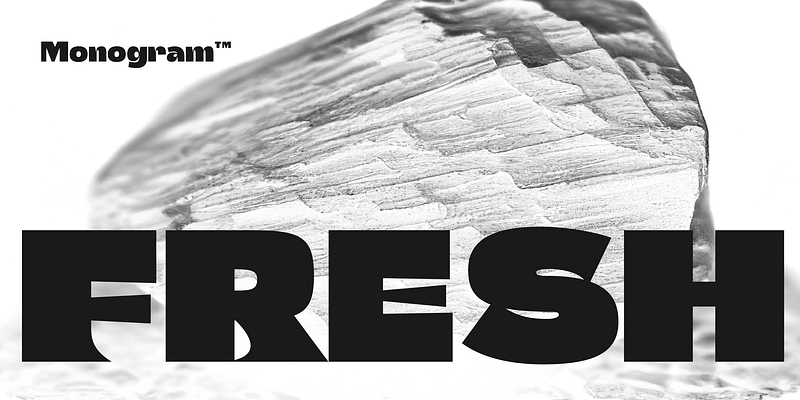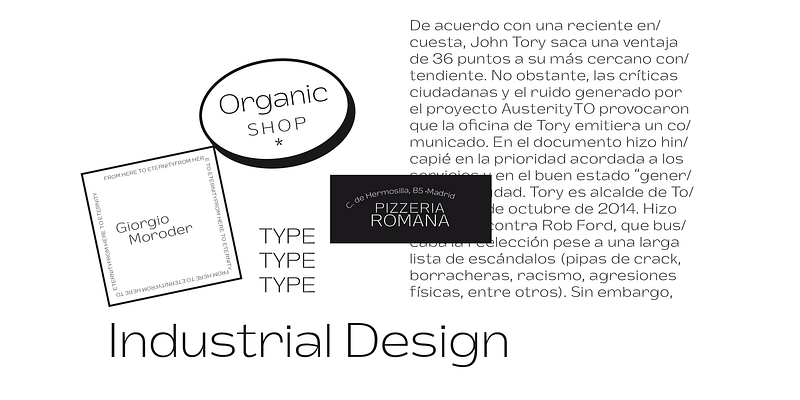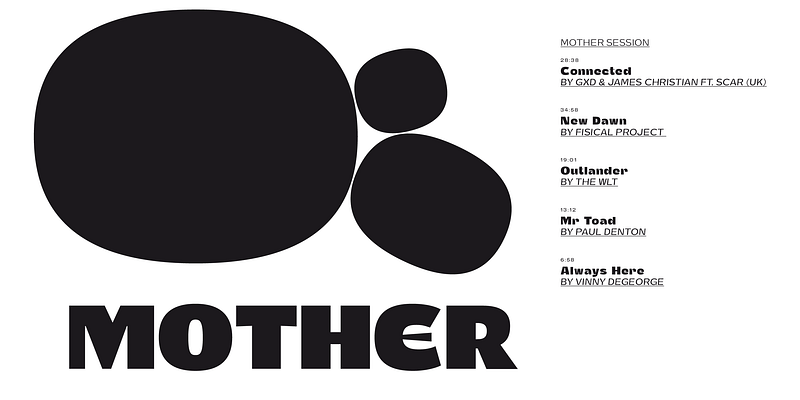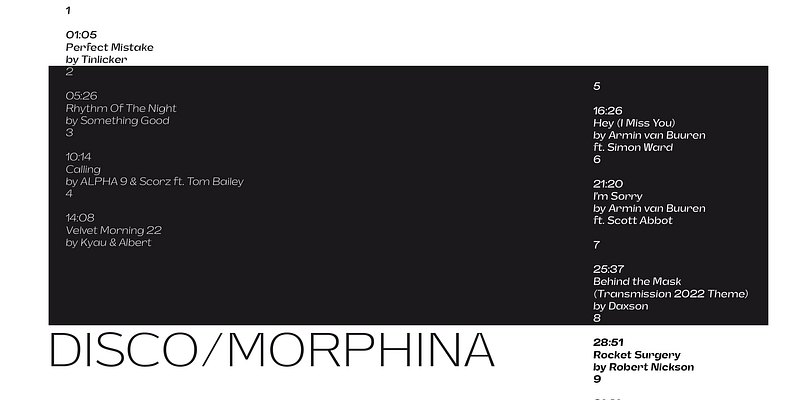
Black Nero Noir, Say hello to our first Sans Serif, a modern font family inspired by classic grotesk typefaces. It features 9 weights, including Italics and a formidable Display version. It has a clean, neutral look that is perfect for all types of graphic design projects. Its ample character set, including Standard and Contextual Alternate, ensures excellent typesetting performance. Sans Serif Grotesk offers good readability and a strong, serious tone that is perfect for logos, magazines, and more. With versatile typographical tools, you’ll have everything you need for any of your design projects.